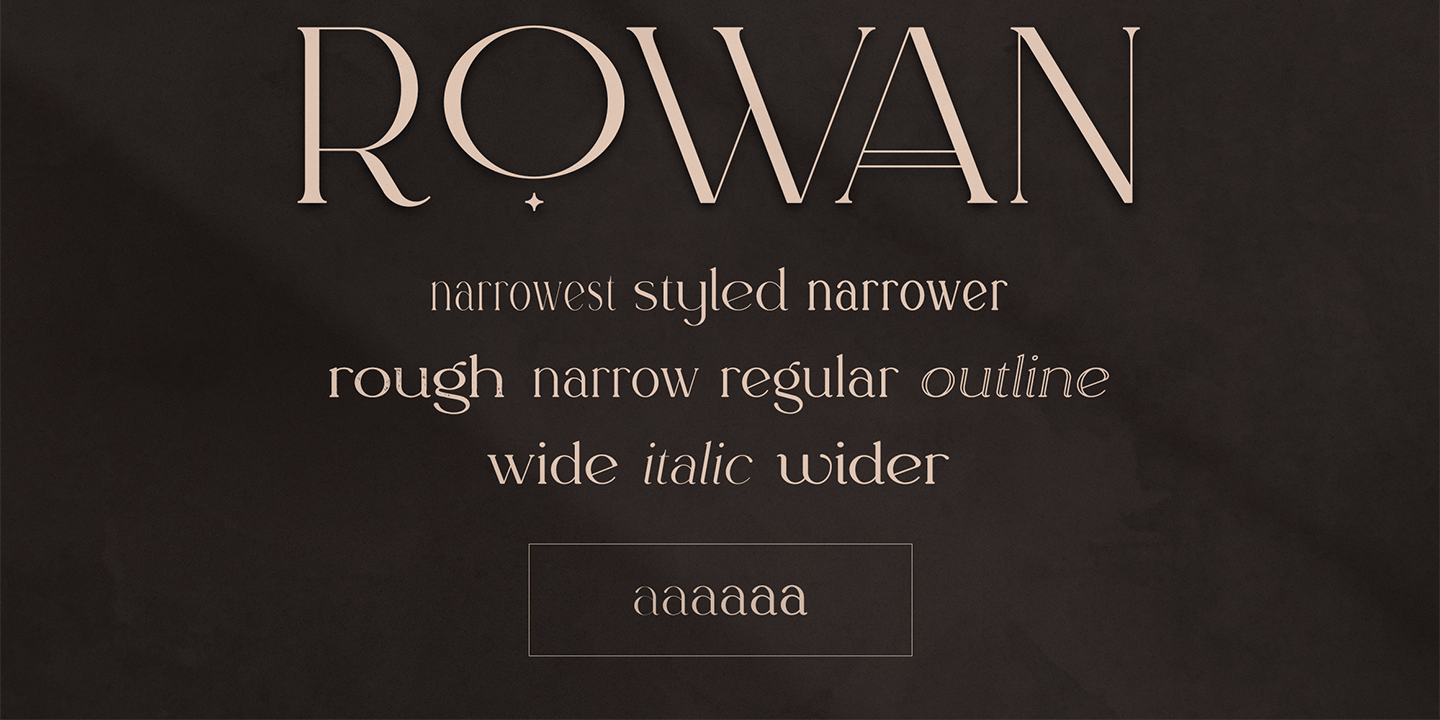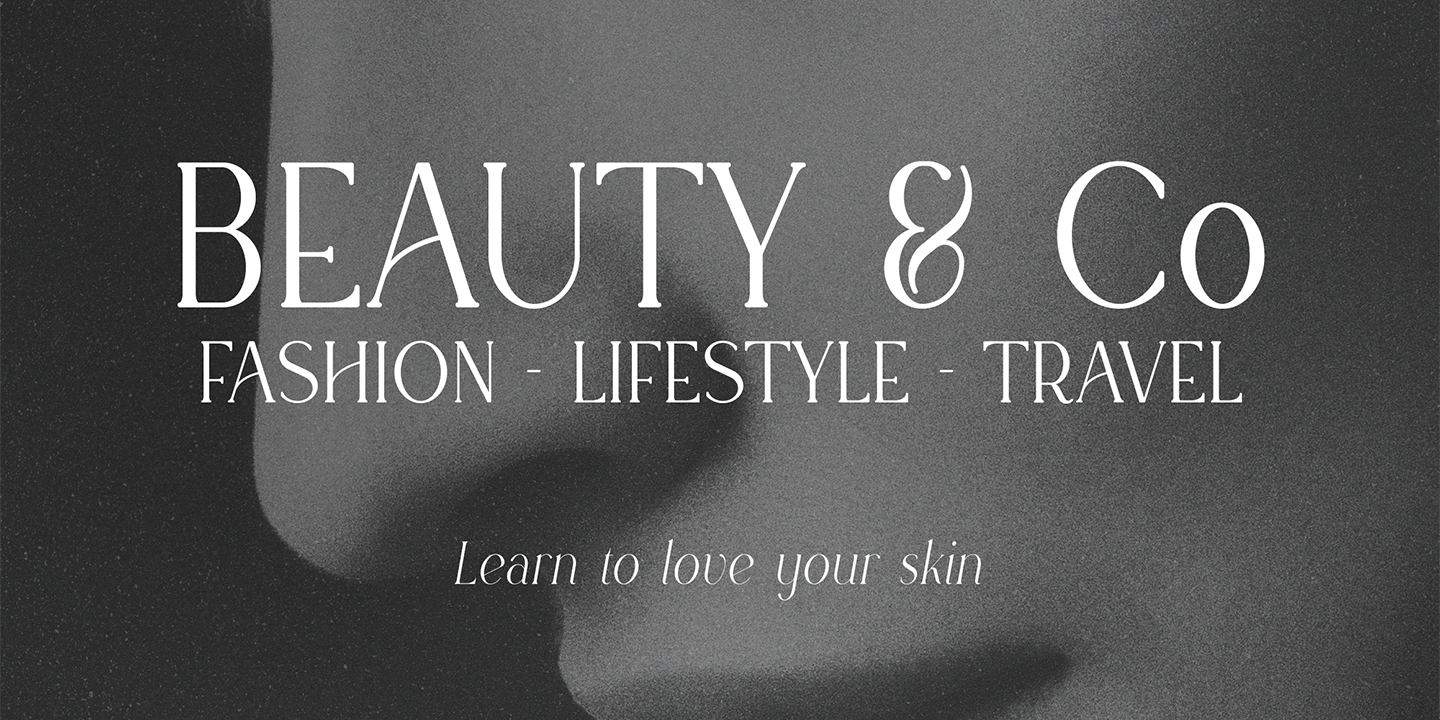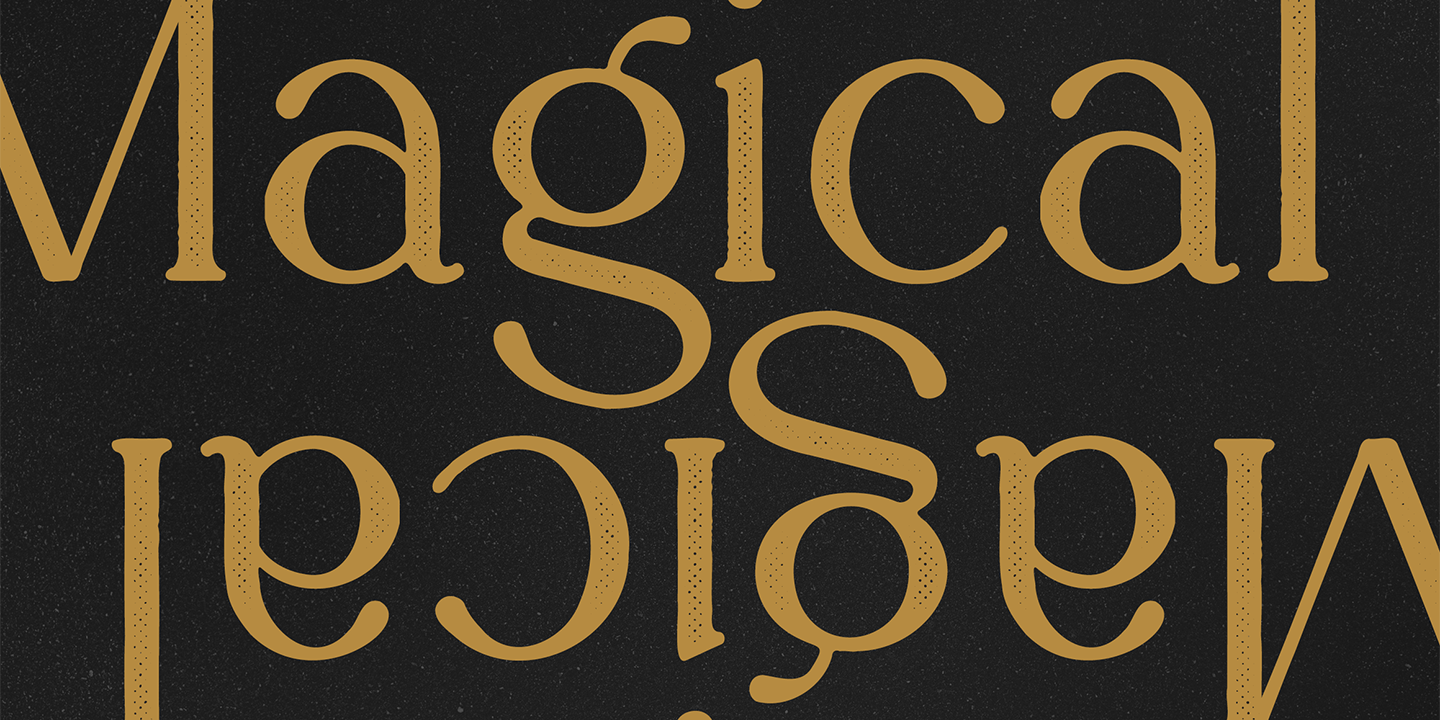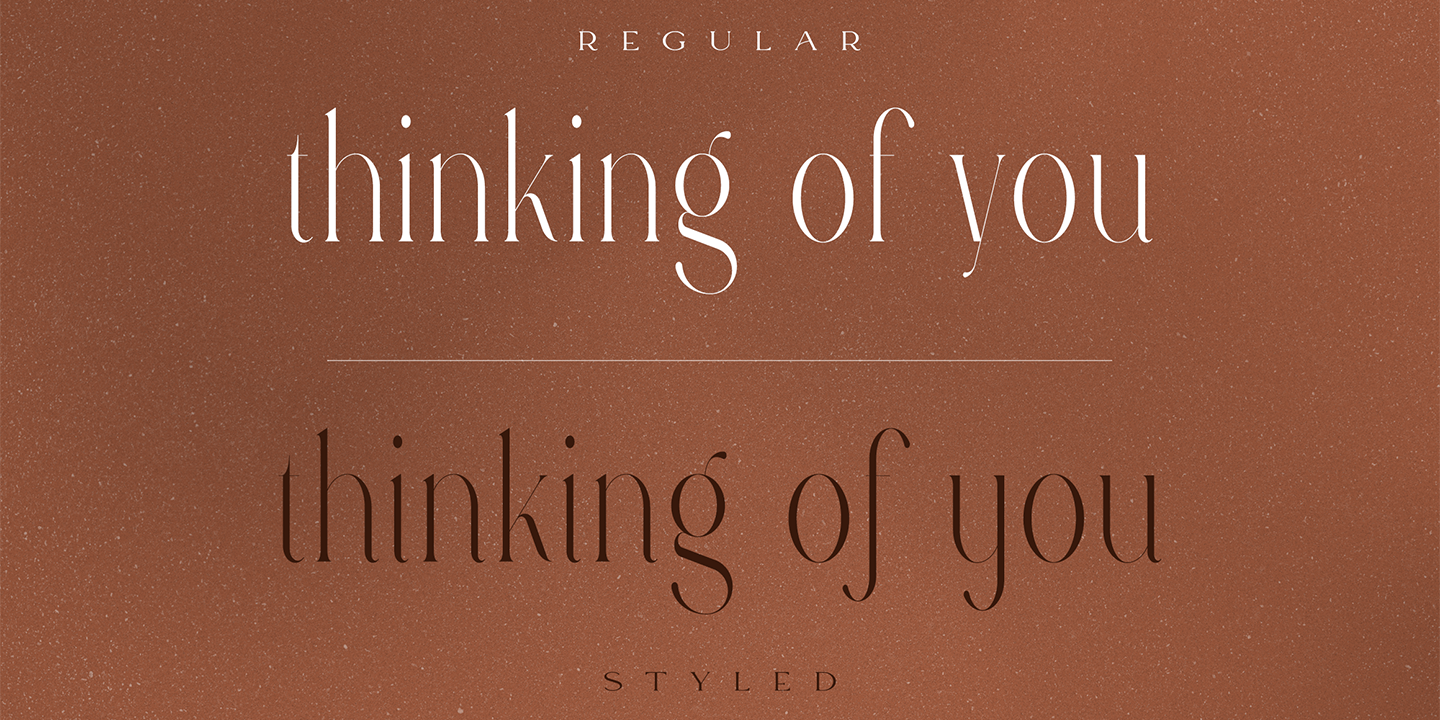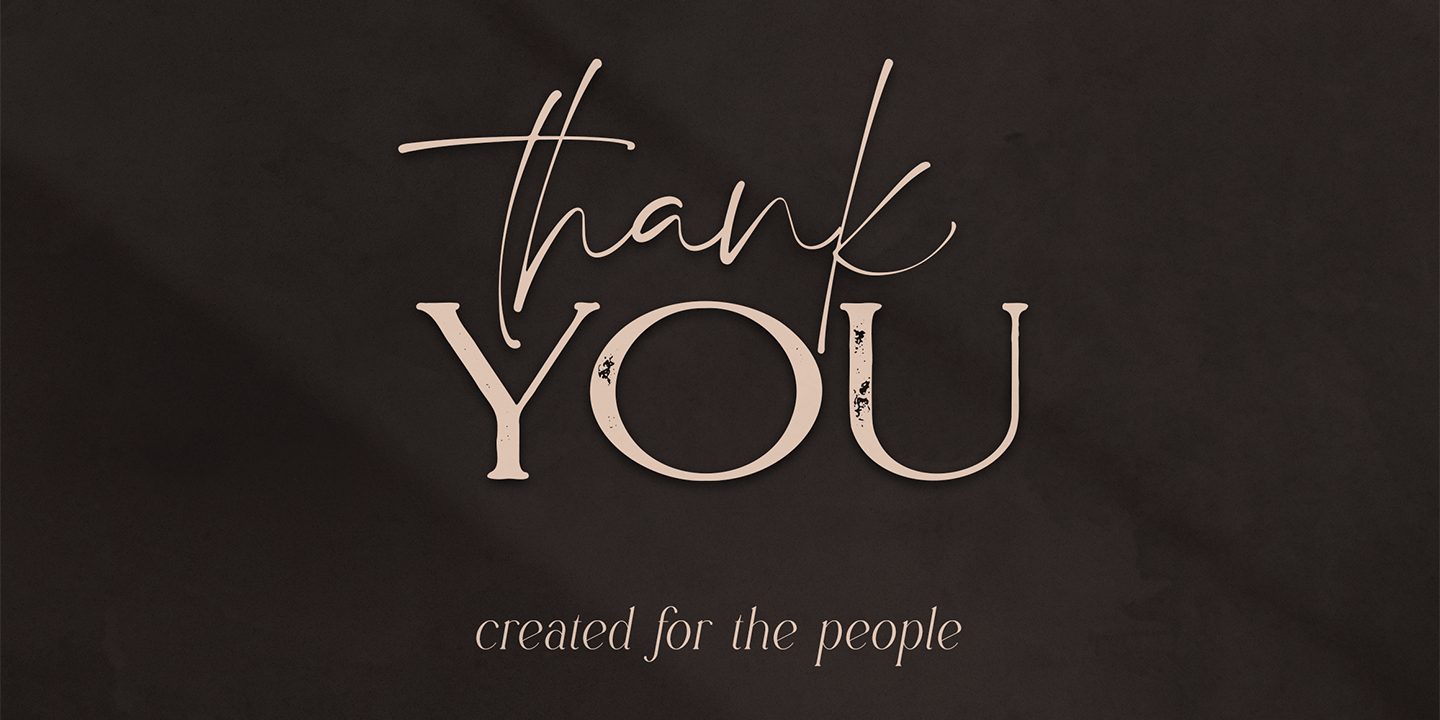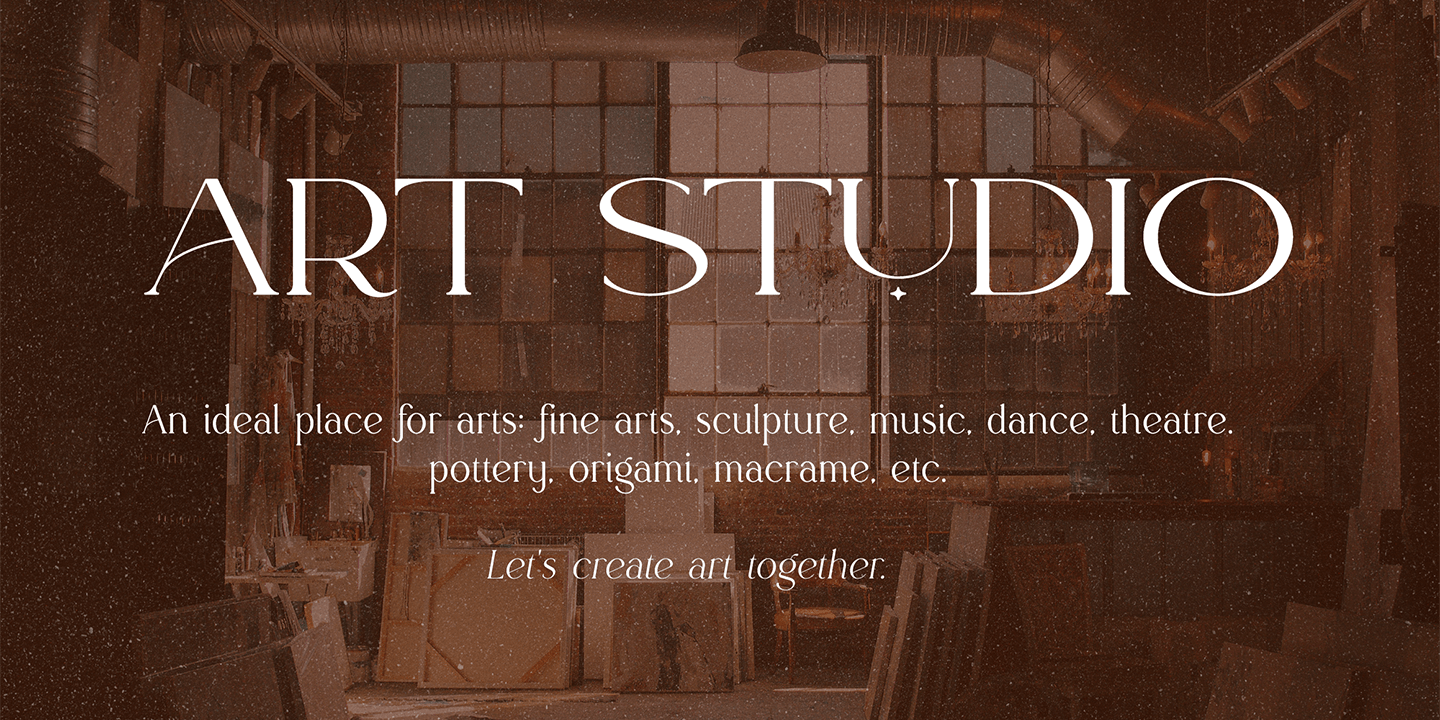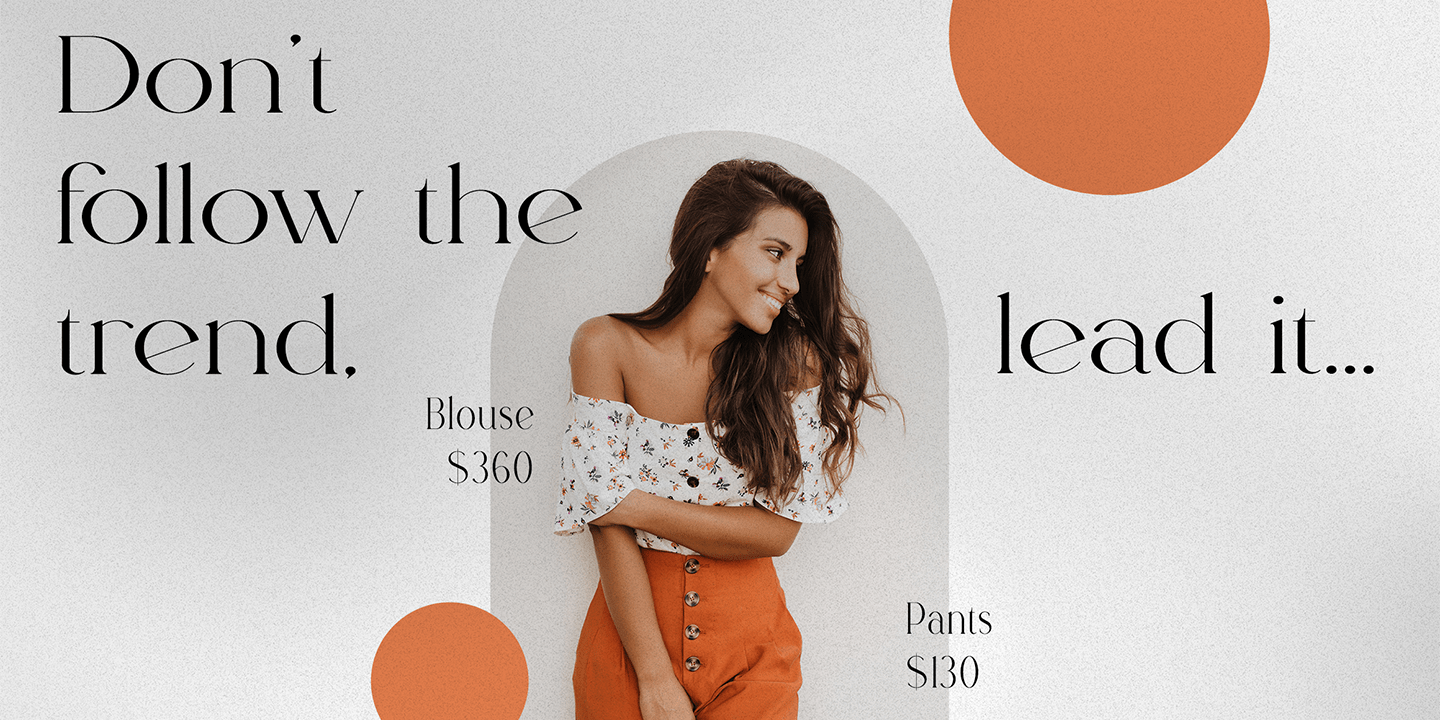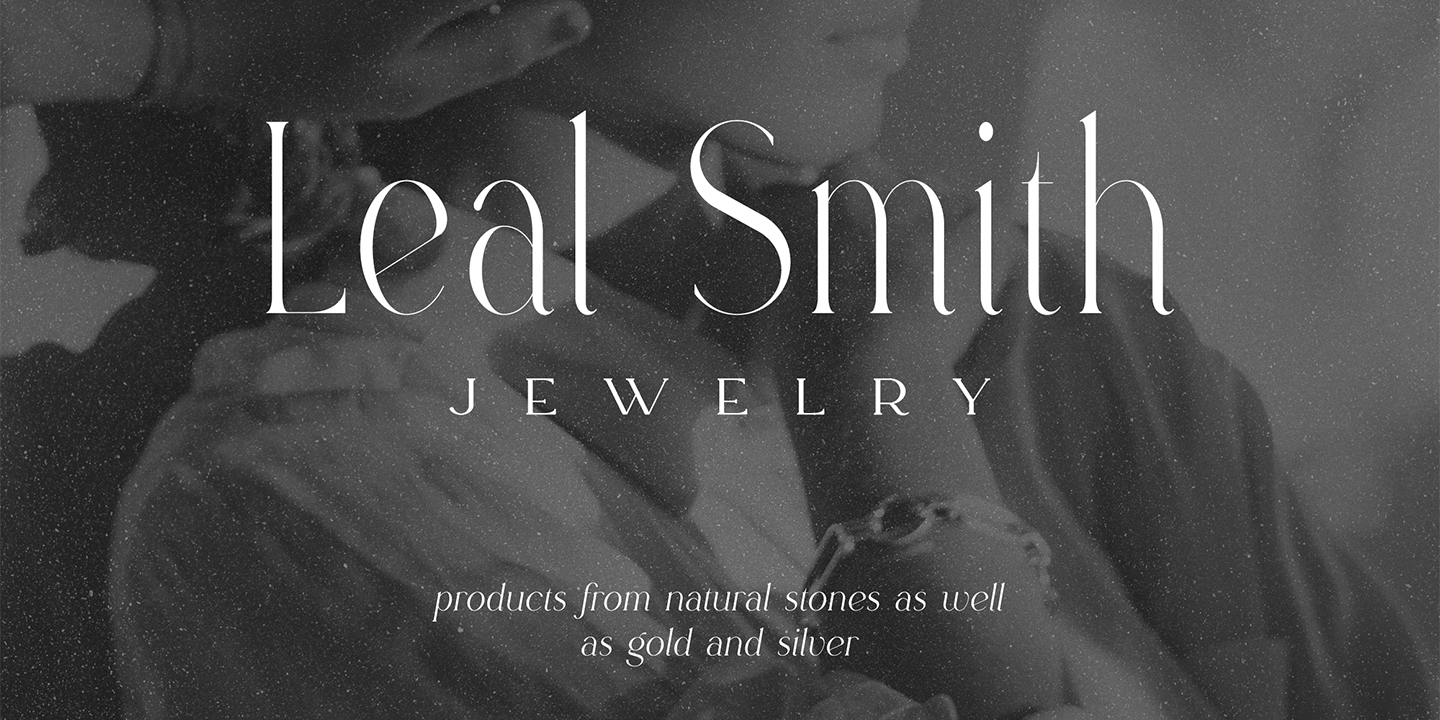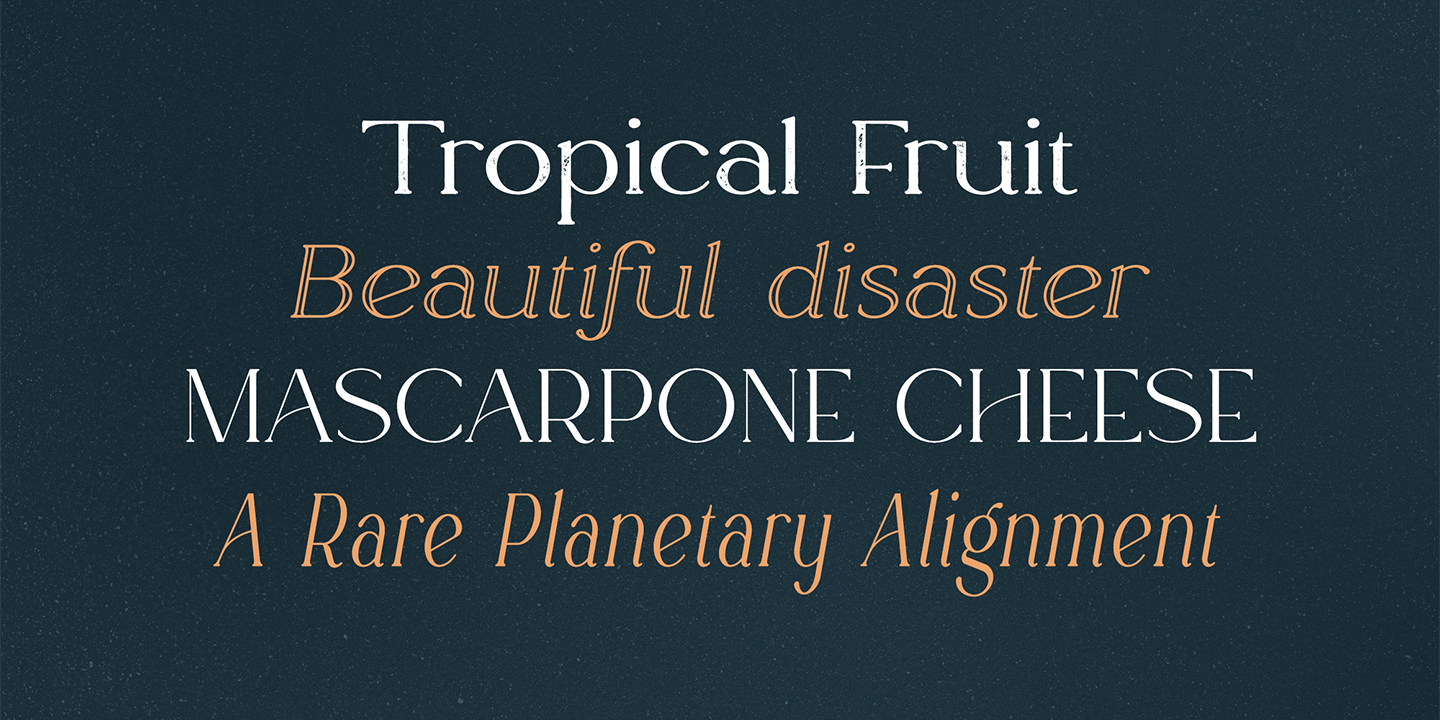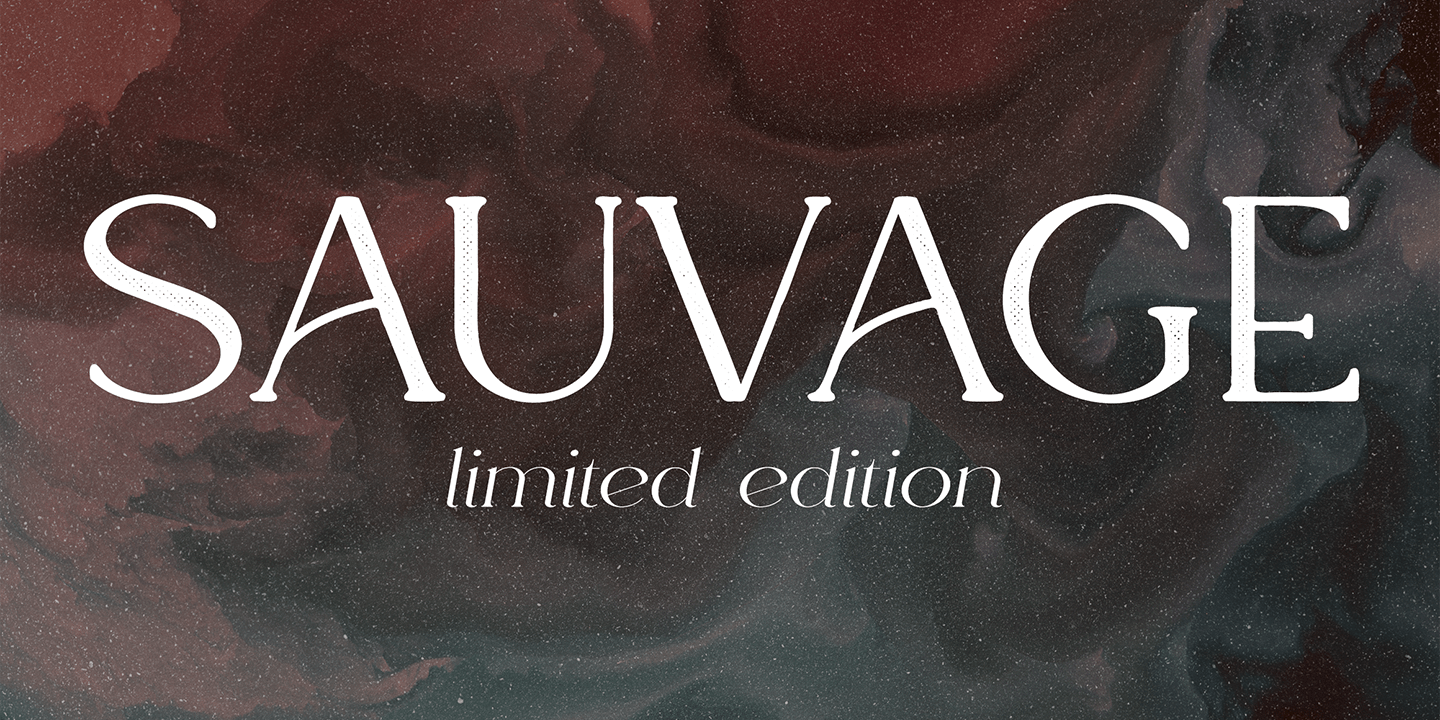
Rowan
Font Family by VP Creative Shop
Introducing Rowan—the vintage-inspired typeface made for creatives! With a cool combination of 116 font styles and 87 languages, this unique typography provides the perfect finishing touch to your projects. Whether you're after something narrow or wide – rough or smooth – we've got it all covered with 6 weight options, alternate glyphs, ligatures...you name it! Get ready to add some retro flair to your work - Rowan's here
FEATURES
• Uppercase, lowercase, numeral, punctuation & Symbol
• ligature glyphs
• alternates
• Narrowest - regular, italic and styled with 6 weights
• Narrower - regular, italic and styled with 6 weights
• Narrow - regular, italic and styled with 6 weights
• Regular - regular, italic and styled with 6 weights
• Wide - regular, italic and styled with 6 weights
• Wider - regular, italic and styled with 6 weights
• 1 script
• 2 rough styles
• 6 outline fonts
• Multilingual support - 87 languages